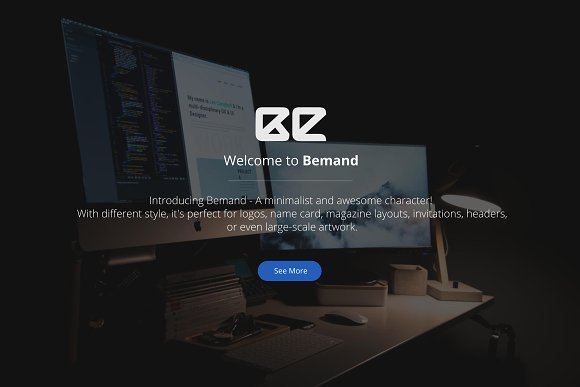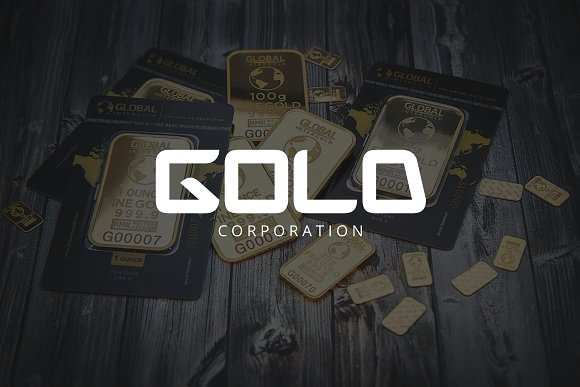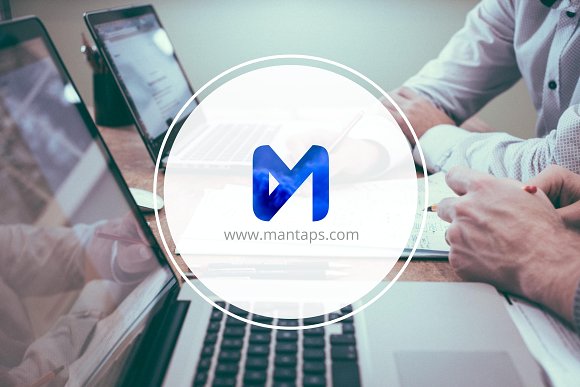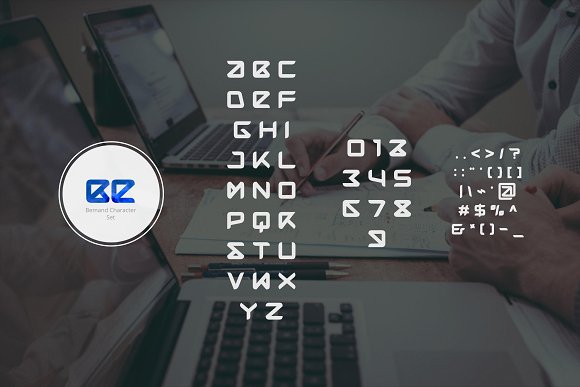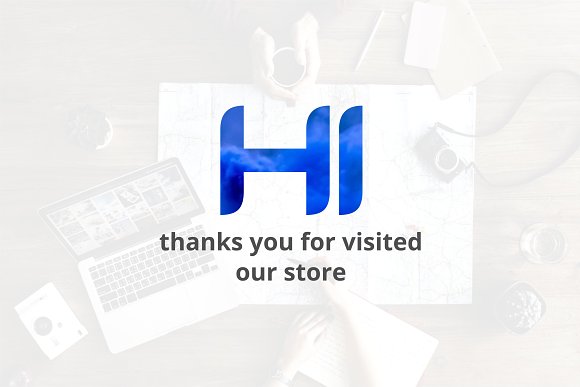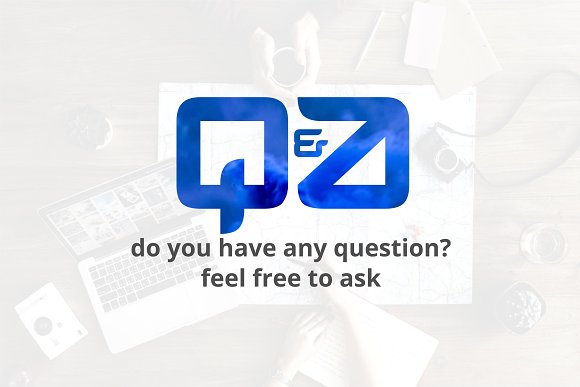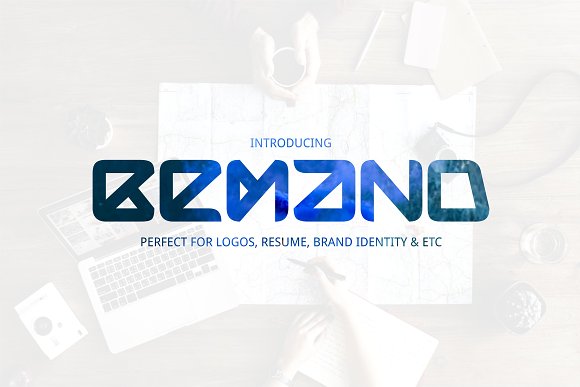
Bemand Font: A Modern Sans Serif Font for Creative Projects
Bemand is a sleek and modern sans serif font created by Sameeh Media, a renowned design studio. This versatile font is perfect for designers and crafters looking for a clean and professional typeface to elevate their creative projects. In this article, we’ll dive into the features, benefits, and uses of the Bemand font, and explore why it’s a great addition to any designer’s toolkit.
What is Bemand Font?
Bemand is a sans serif font, which means it doesn’t have the small lines or flourishes at the end of the letters, giving it a clean and minimalist look. The font is designed to be highly legible, making it perfect for body text, headings, and titles. Its modern and sleek design makes it suitable for a wide range of applications, from digital designs to print materials.
Features of Bemand Font
The Bemand font comes with a range of features that make it a versatile and practical choice for designers. Some of its key features include:
- Clean and minimalist design: The Bemand font has a simple and uncluttered design, making it perfect for designs that require a professional and modern look.
- High legibility: The font is designed to be highly legible, even at small sizes, making it suitable for body text and other applications where readability is crucial.
- Versatile: The Bemand font can be used for a wide range of applications, from digital designs to print materials, and can be easily paired with other fonts to create a unique look.
- Easy to read: The font has a clear and consistent letterform, making it easy to read and understand.
Benefits of Using Bemand Font
There are several benefits to using the Bemand font in your designs. Some of the key advantages include:
- Professional look: The Bemand font has a clean and professional look that can elevate your designs and give them a modern feel.
- Improved legibility: The font’s high legibility makes it perfect for designs that require a lot of text, such as articles, blog posts, and other written content.
- Flexibility: The Bemand font can be used for a wide range of applications, from digital designs to print materials, making it a versatile addition to any designer’s toolkit.
- Easy to pair with other fonts: The font’s clean and minimalist design makes it easy to pair with other fonts to create a unique and visually appealing look.
Uses of Bemand Font
The Bemand font can be used for a wide range of applications, including:
- Digital designs: The font is perfect for digital designs, such as website designs, social media graphics, and other online applications.
- Print materials: The font can be used for print materials, such as brochures, flyers, and business cards.
- Headings and titles: The font’s clean and modern design makes it perfect for headings and titles, adding a touch of professionalism to any design.
- Body text: The font’s high legibility makes it suitable for body text, making it perfect for articles, blog posts, and other written content.
In conclusion, the Bemand font is a versatile and practical choice for designers and crafters looking for a clean and professional sans serif font. Its modern design, high legibility, and flexibility make it perfect for a wide range of applications, from digital designs to print materials. Whether you’re looking to add a touch of professionalism to your designs or simply want a font that’s easy to read and understand, the Bemand font is a great choice.